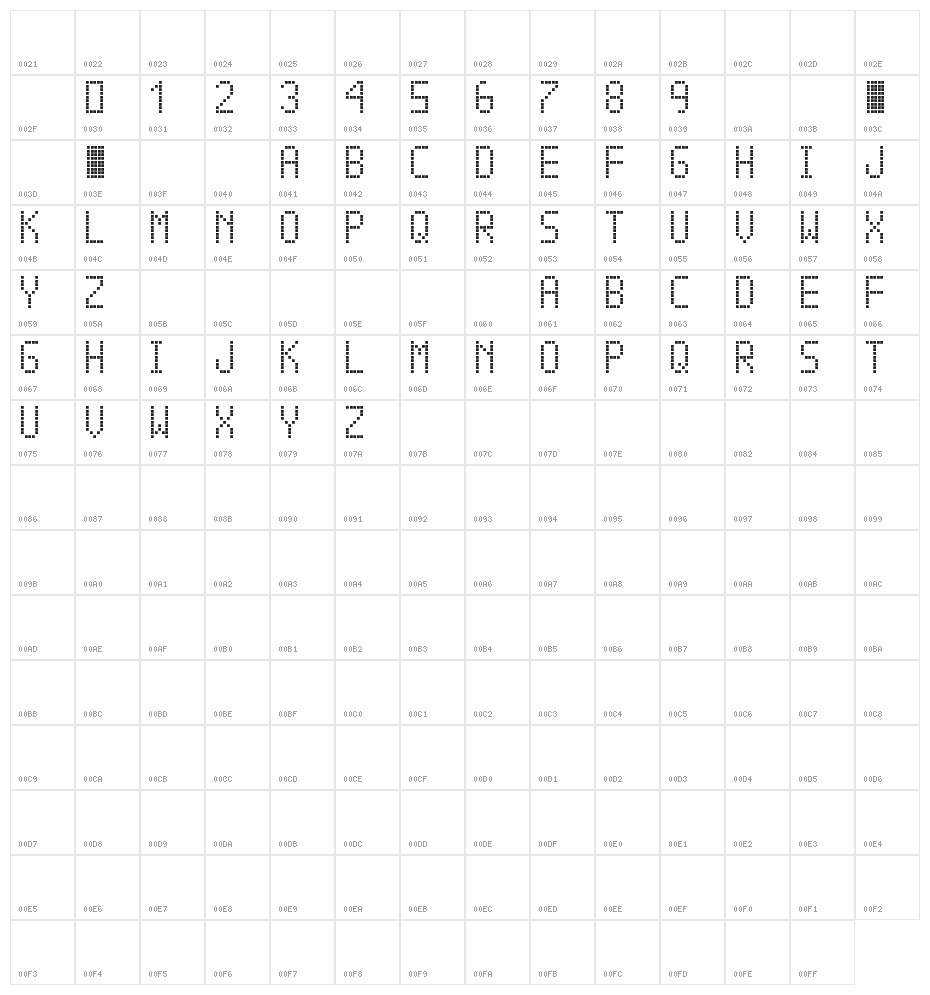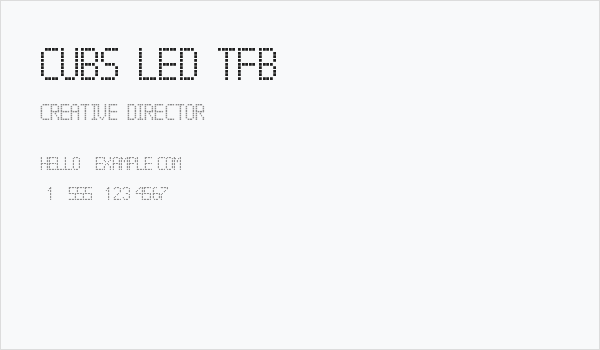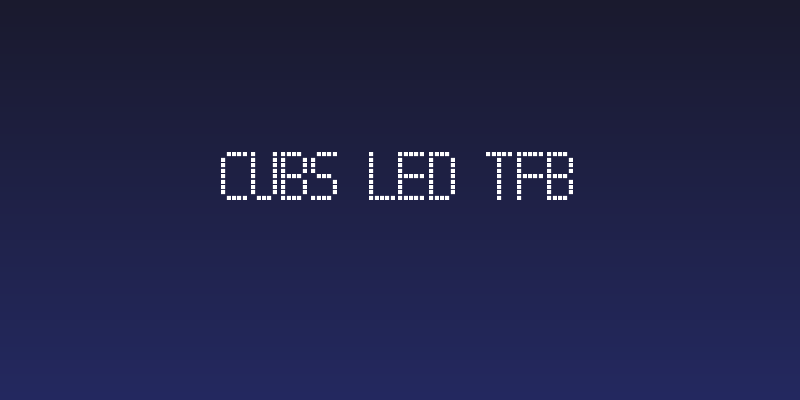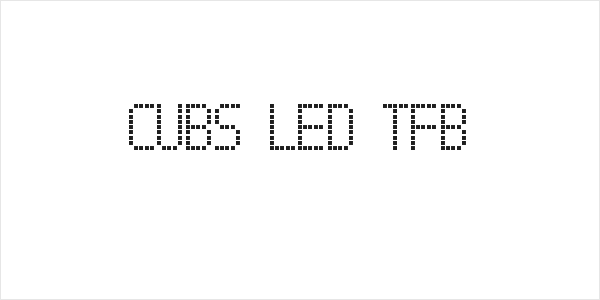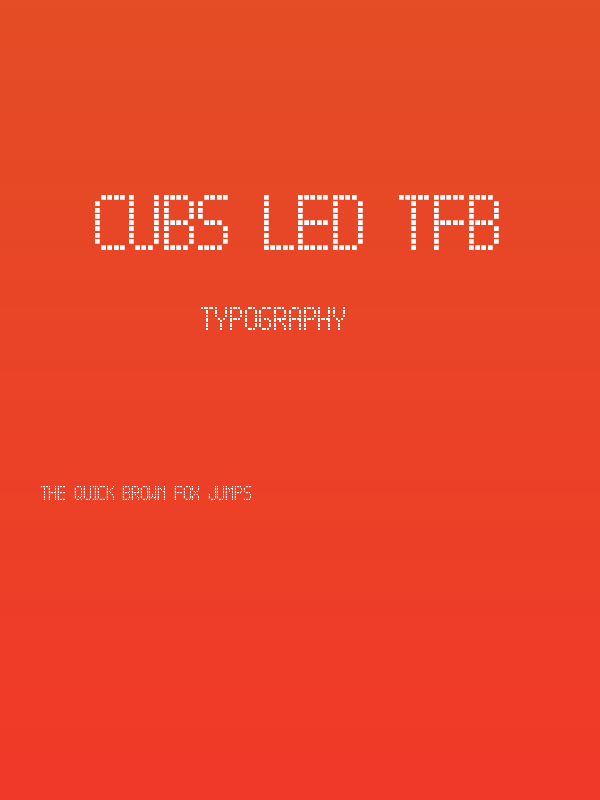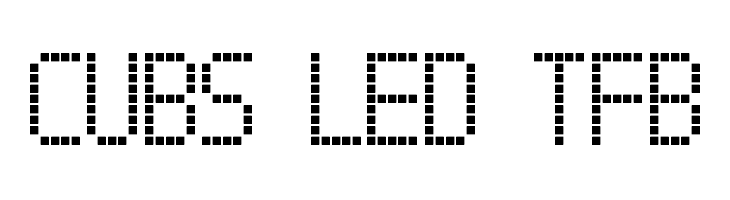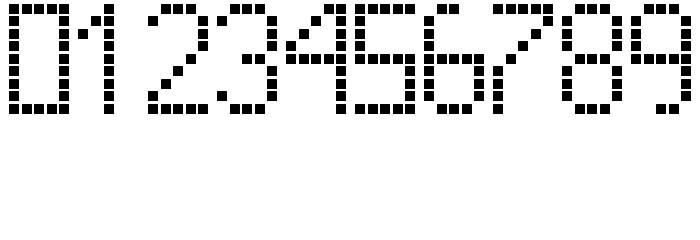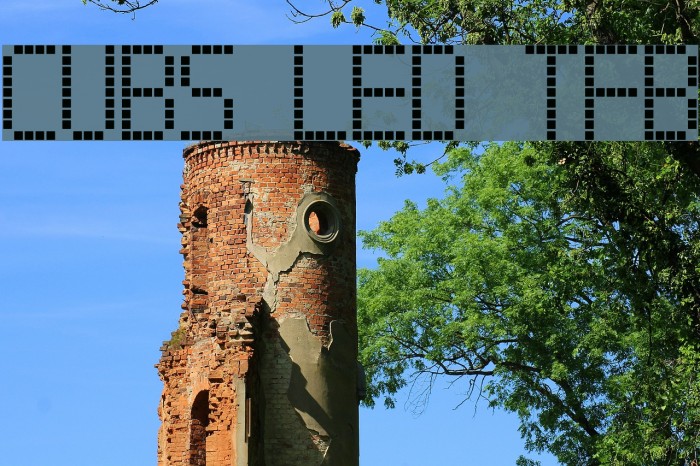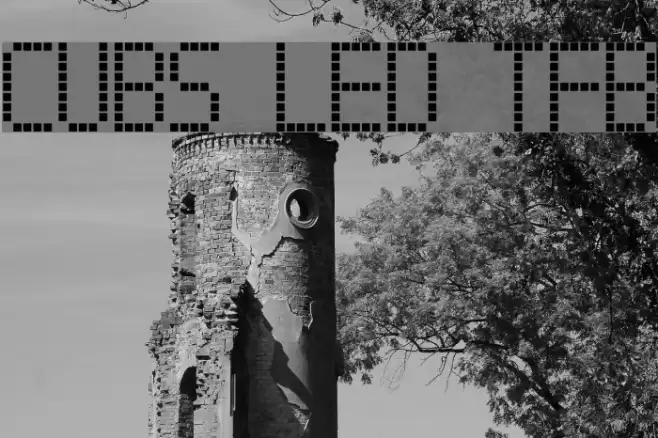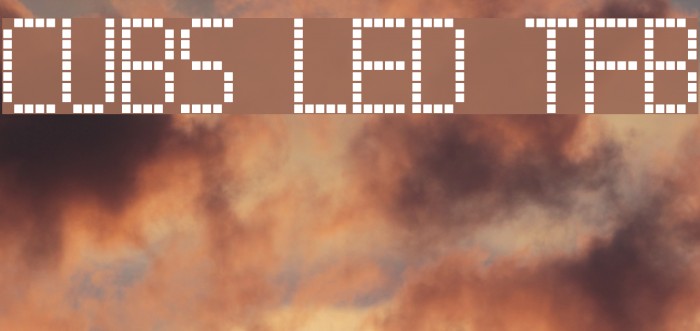
CUBS LED TFB Font
CUBS LED TFB Description
This font features a distinctive dot-matrix style, reminiscent of LED displays. Each character is constructed from a grid of small, evenly spaced dots, creating a digital and modern appearance. The uppercase and lowercase letters maintain a consistent height, contributing to a uniform look. The numerals and special characters follow the same dot pattern, ensuring cohesion across all elements. This font's geometric precision and technological aesthetic make it ideal for digital-themed projects.
| Use Case | Headlines, Logos, Digital displays |
| Proposed Projects | Ideal for digital displays, tech-themed designs, retro video game graphics, and electronic device interfaces. |